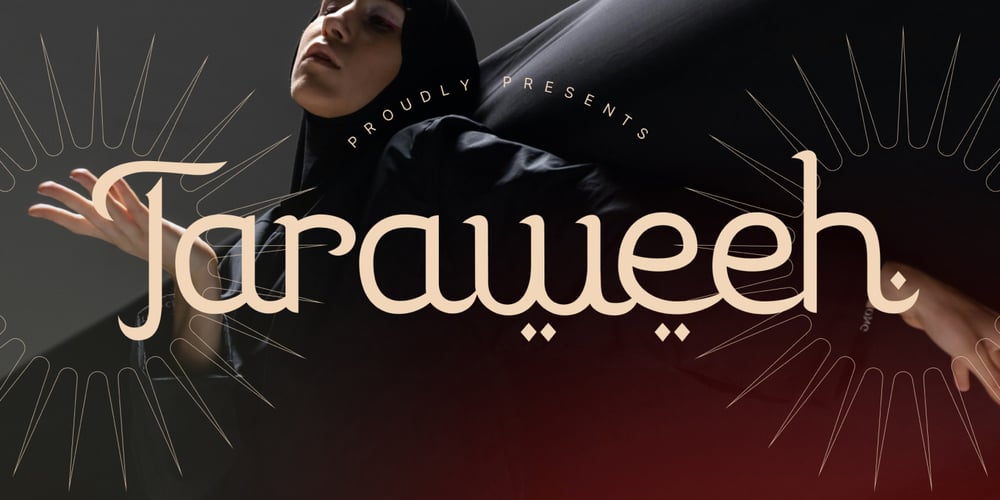
Taraweeh Font Family was designed by published by Vadova Std. Taraweeh contains 1 styles and family package options. Elevate your designs with Taraweeh Islamic, a modern font perfect for adding elegance and style to your projects. This font offers key features like OpenType format compatibility, uppercase and lowercase characters, plus numerals and punctuation, perfect for versatile and professional designs. Whether it’s for quotes, logotypes, magazine headers or more.